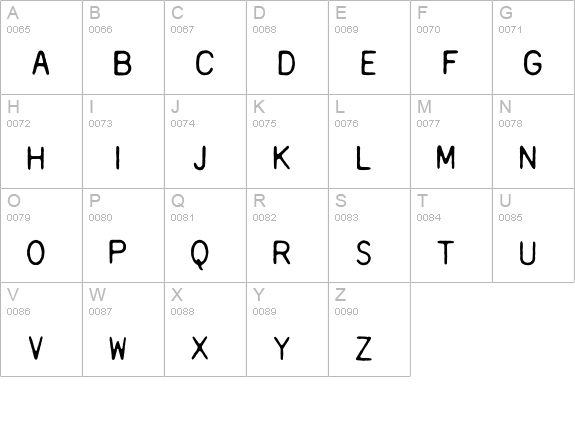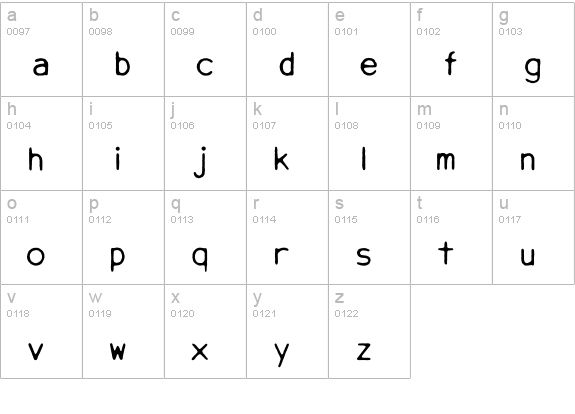
DaisyWheel font is a charming and whimsical typeface that exudes a sense of playfulness and creativity. Its rounded edges and delicate curves give it a friendly and approachable appearance, making it perfect for a variety of design projects. Whether you are creating invitations, greeting cards, or branding materials, DaisyWheel font will add a touch of warmth and personality to your work. What makes DaisyWheel font even more appealing is that it is available for free download at FontsMarket.com. This means that you can easily access this delightful font and use it in your projects without any cost. With its unique style and versatile design, DaisyWheel font is sure to become a favorite among designers and creatives looking to add a touch of whimsy to their work.